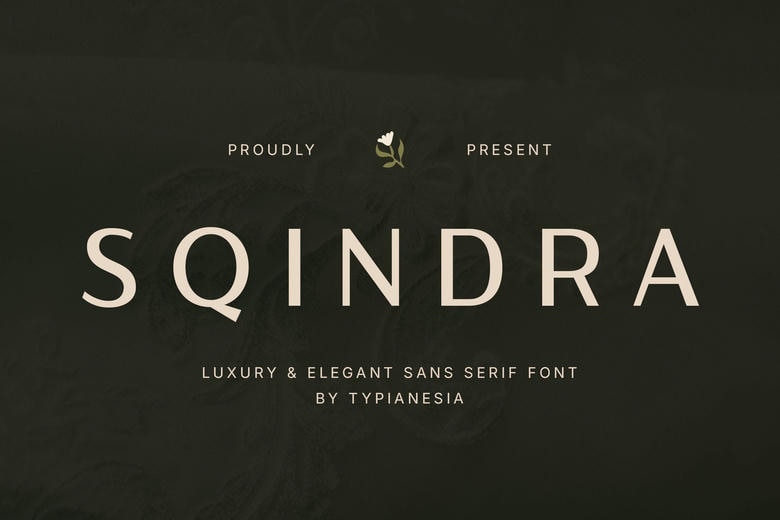
Sqindra Font
Sqindra is a handcrafted luxury, elegant sans serif font that can bring any of your creative tasks to a new level. Having a clean-lined, minimal look and feel, Sqindra conveys the feeling of beauty and modernity, and as a result, it has been used to glamorously brand high-end brands, decorate editorial designs and invitations,
Headlines, packaging design, logos, skincare brands, posters, advertising campaigns, magazine, and any project that puts a touch of both classic style and contemporary simplicity to deliver the message to anybody clearly and authoritatively.
Sqindra Sans Serif Font